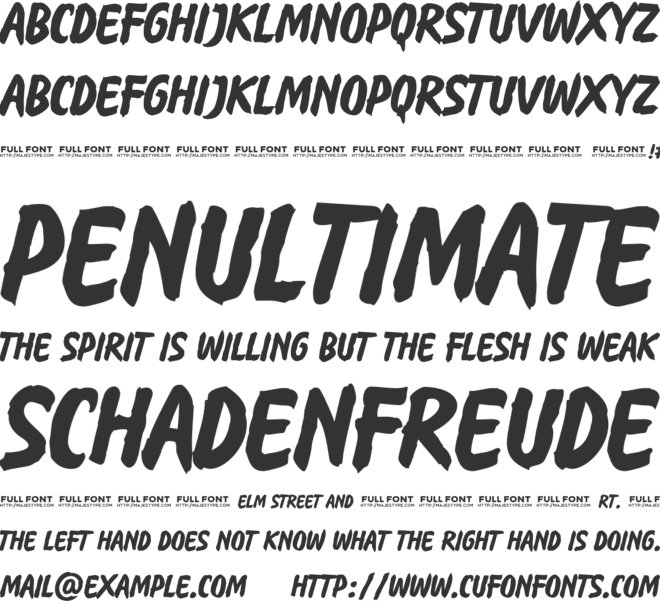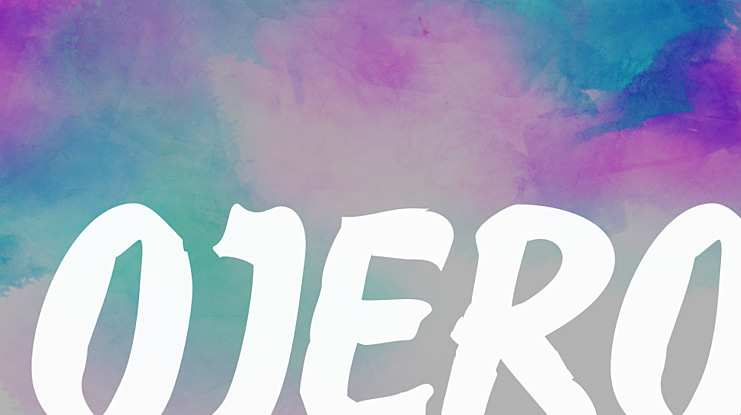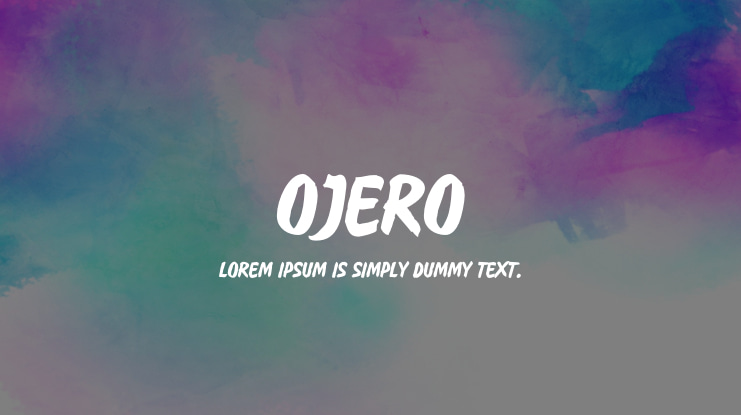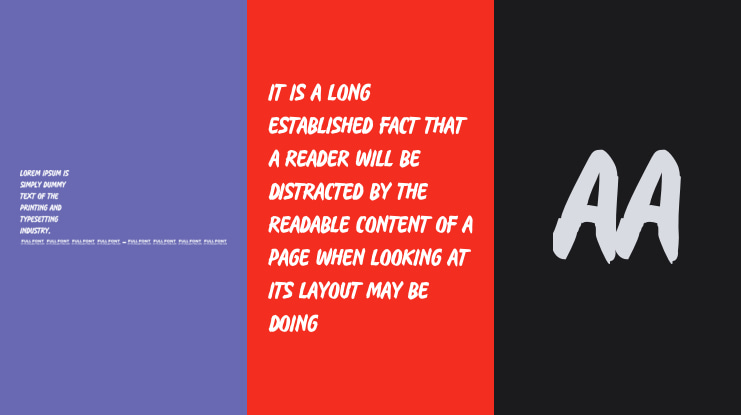
Ojero Font
Ojero is a bold brush font designed especially for displays. Having strong characteristics makes this font perfect for designs that want to stand out.